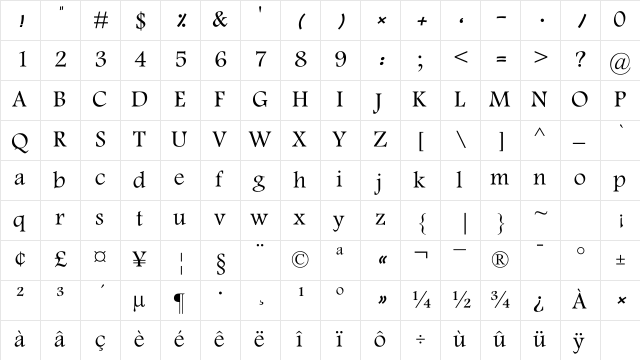
K Farnaz Font Preview
K Farnaz K Farnaz
K Farnaz Font Details
Design Context for K Farnaz Typeface
K Farnaz takes a measured approach to typography — its balanced proportions and neutral character make it a reliable workhorse for both digital and print work.